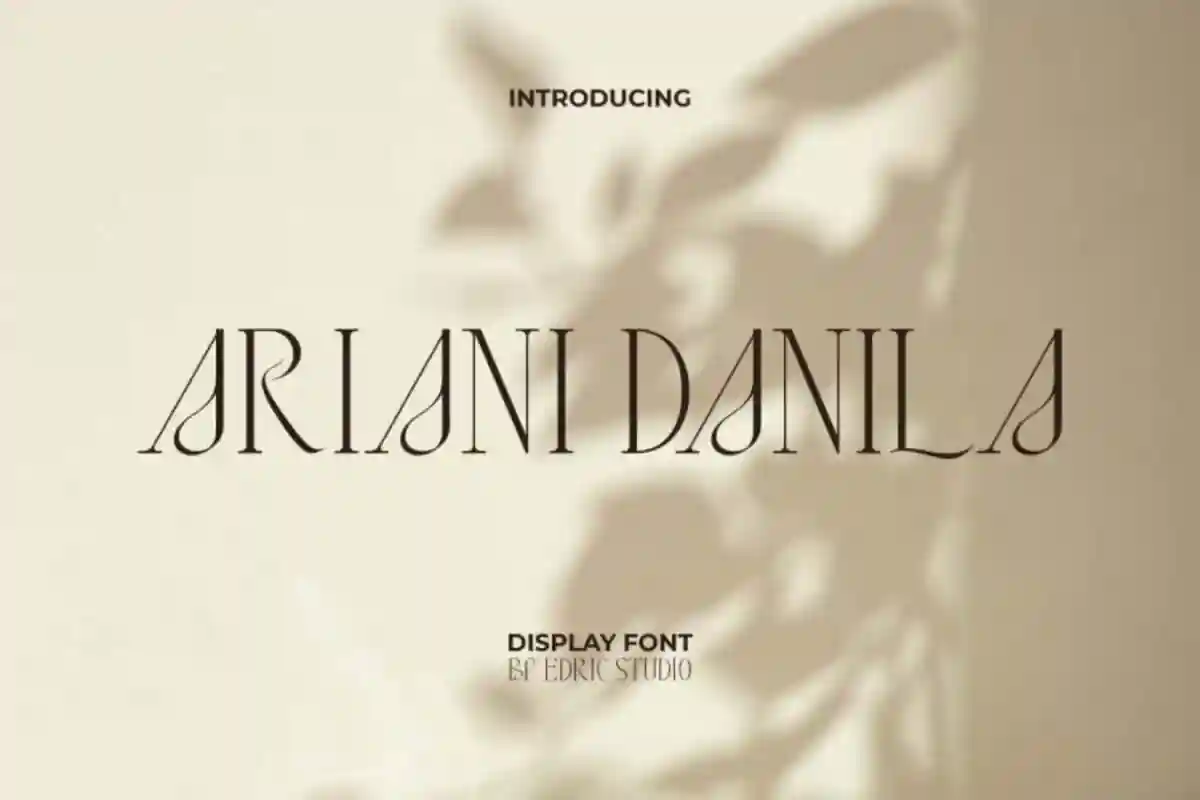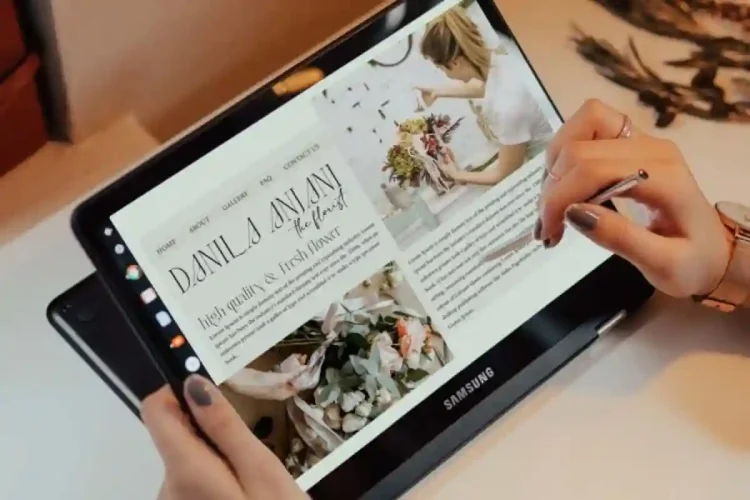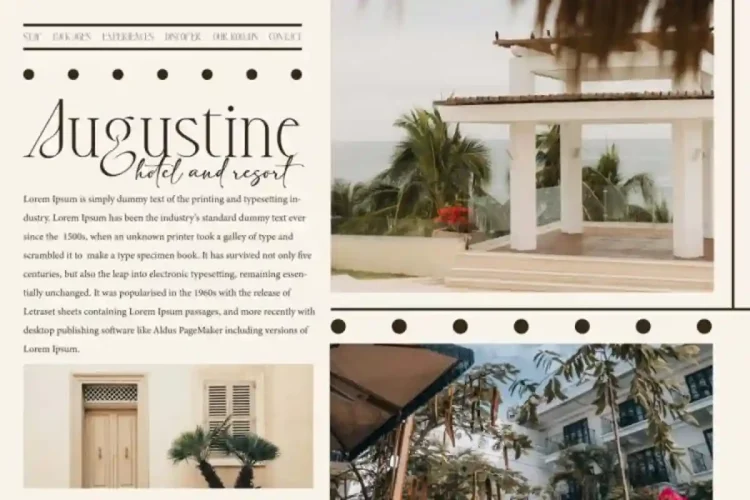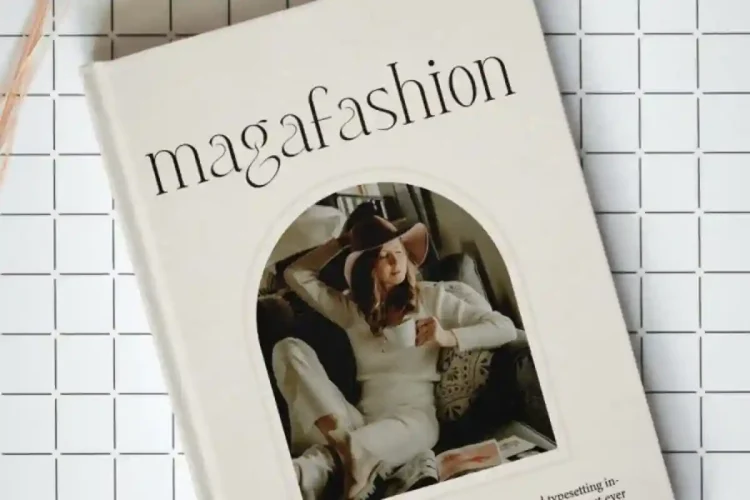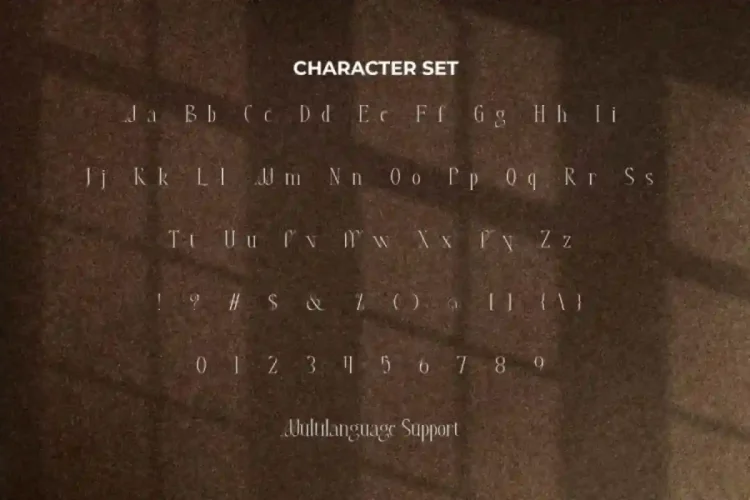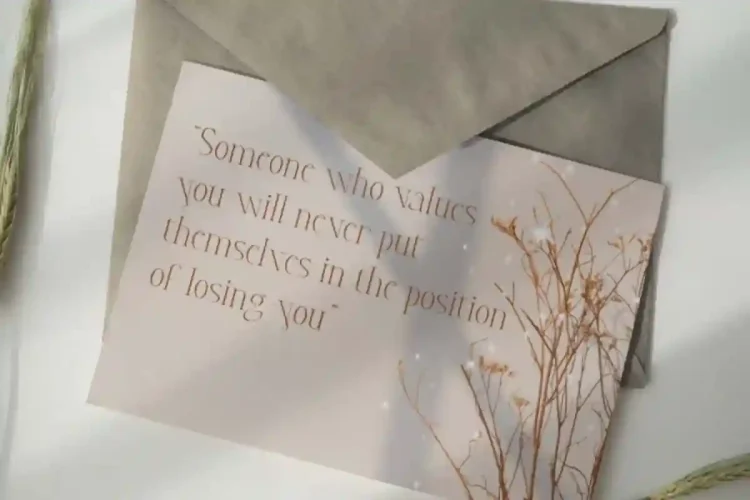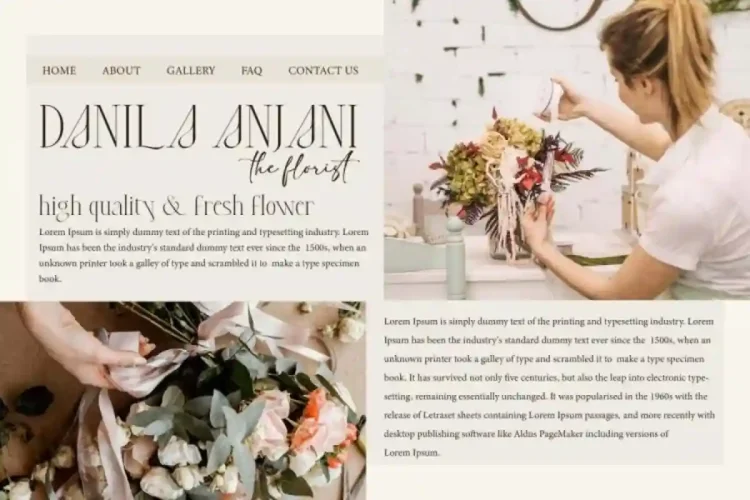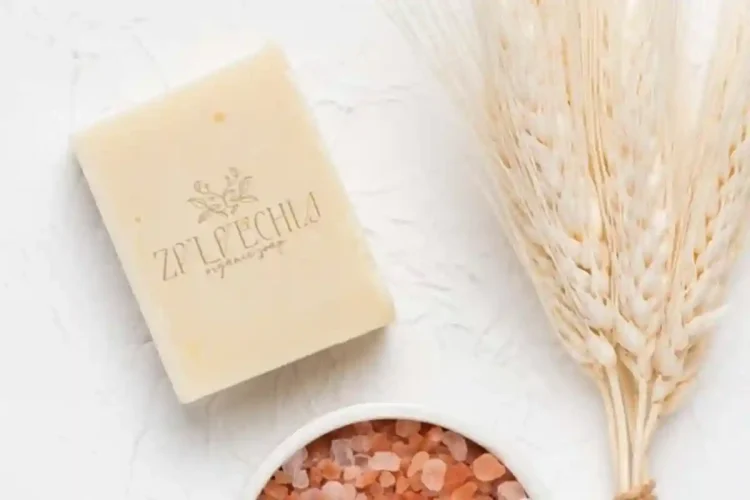
Ariani Danila Modern Display Font
Ariani Danila Modern Font is an elegant serif display font with a sleek typeface with high contrast and beautiful curves. This timeless serif font adds a touch of luxury and refinement, making it a must-have addition to every designer’s font collection.
Ariani Danila Display Font comes with a complete set of Uppercase and Lowercase Letters, Numbers, Punctuation, and Symbols. This font has a beautiful character with a full style of letters that seem to dance and rotate harmoniously to form a unique and classy typographic design. It is the perfect for boutique, carving, fashion, florist, graphic designer, handicraft, holiday lodging, writer, and many more.